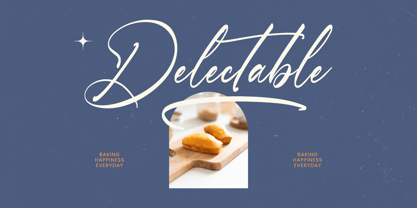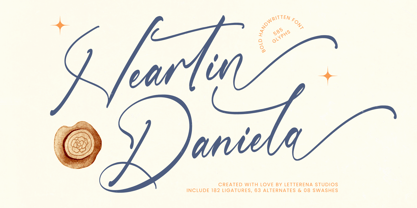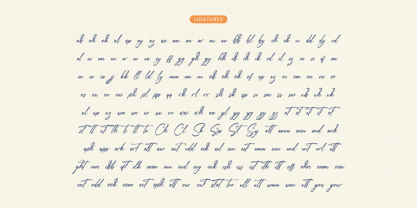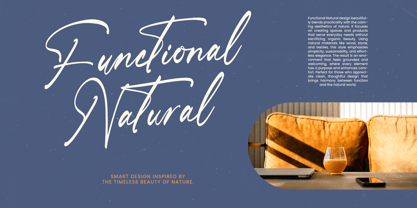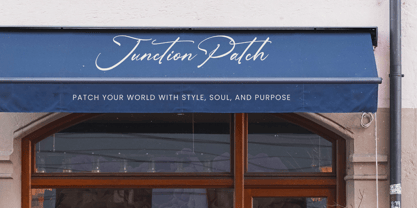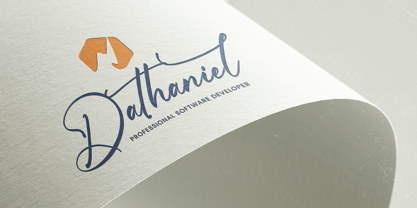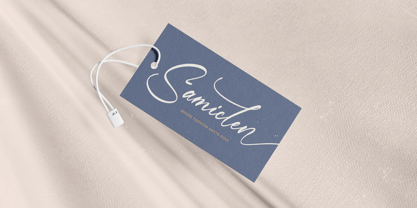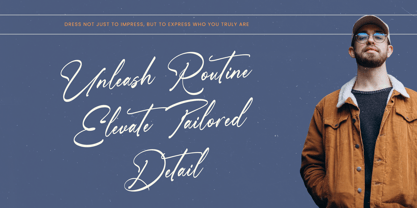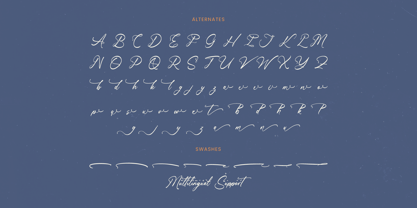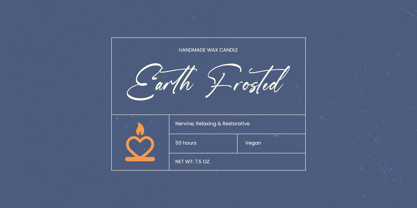
Heartin Daniela
by Letterena Studios
The Heartin Daniela Font Family was designed by Heru Utama Putra and published by Letterena Studios. Heartin Daniela contains 2 styles and family package options. More about this family
Heartin Daniela - Bold Handwritten Font , from Letterena, is a Luxury Script font, suitable for any projects such as: logos, branding projects, homeware designs, product packaging, mugs, quotes, posters, shopping bags, t-shirts, book covers, name card, invitation cards, greeting cards, label, photography, watermark, special events, and all your other luxury and beautiful projects that need a Luxury Script taste.